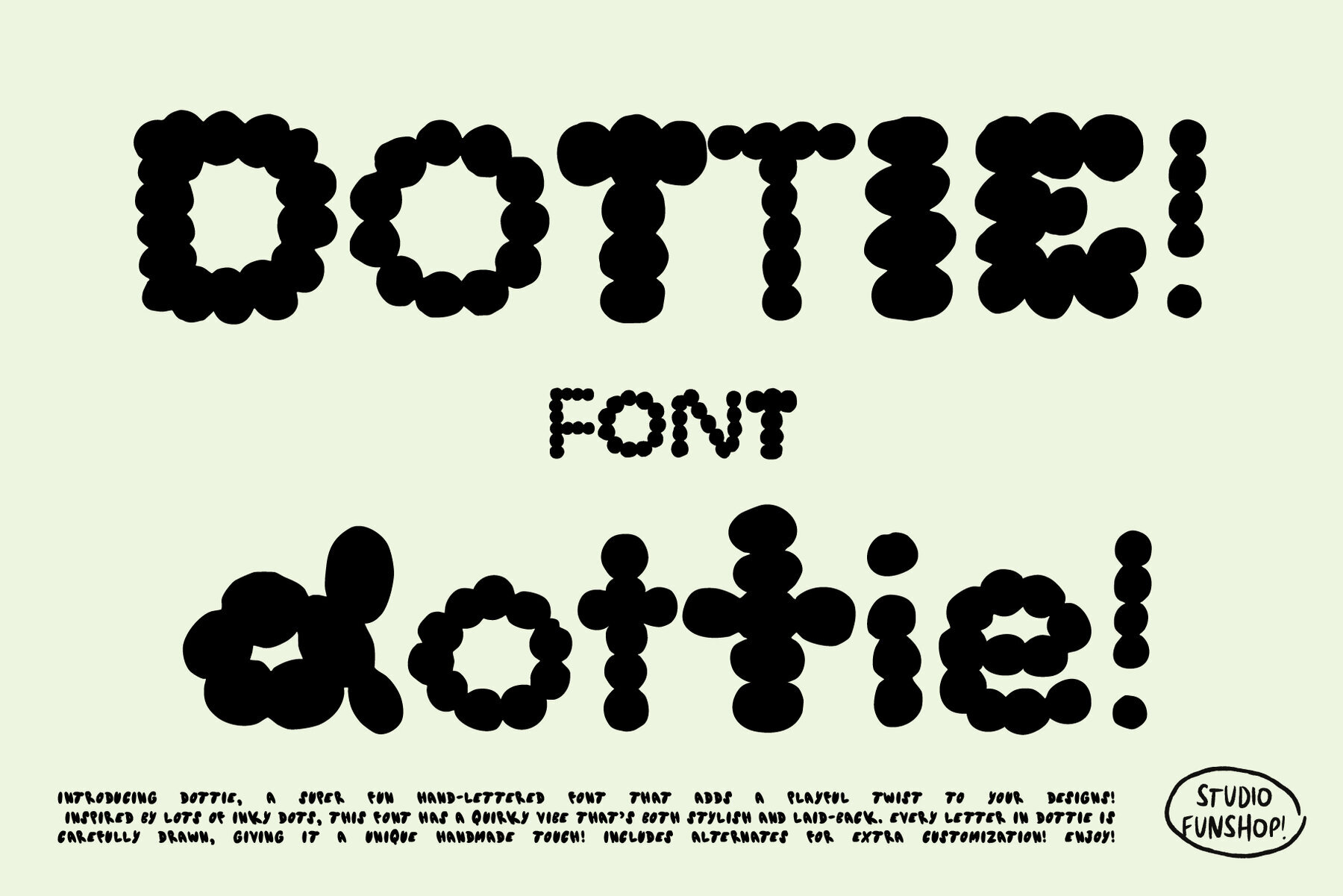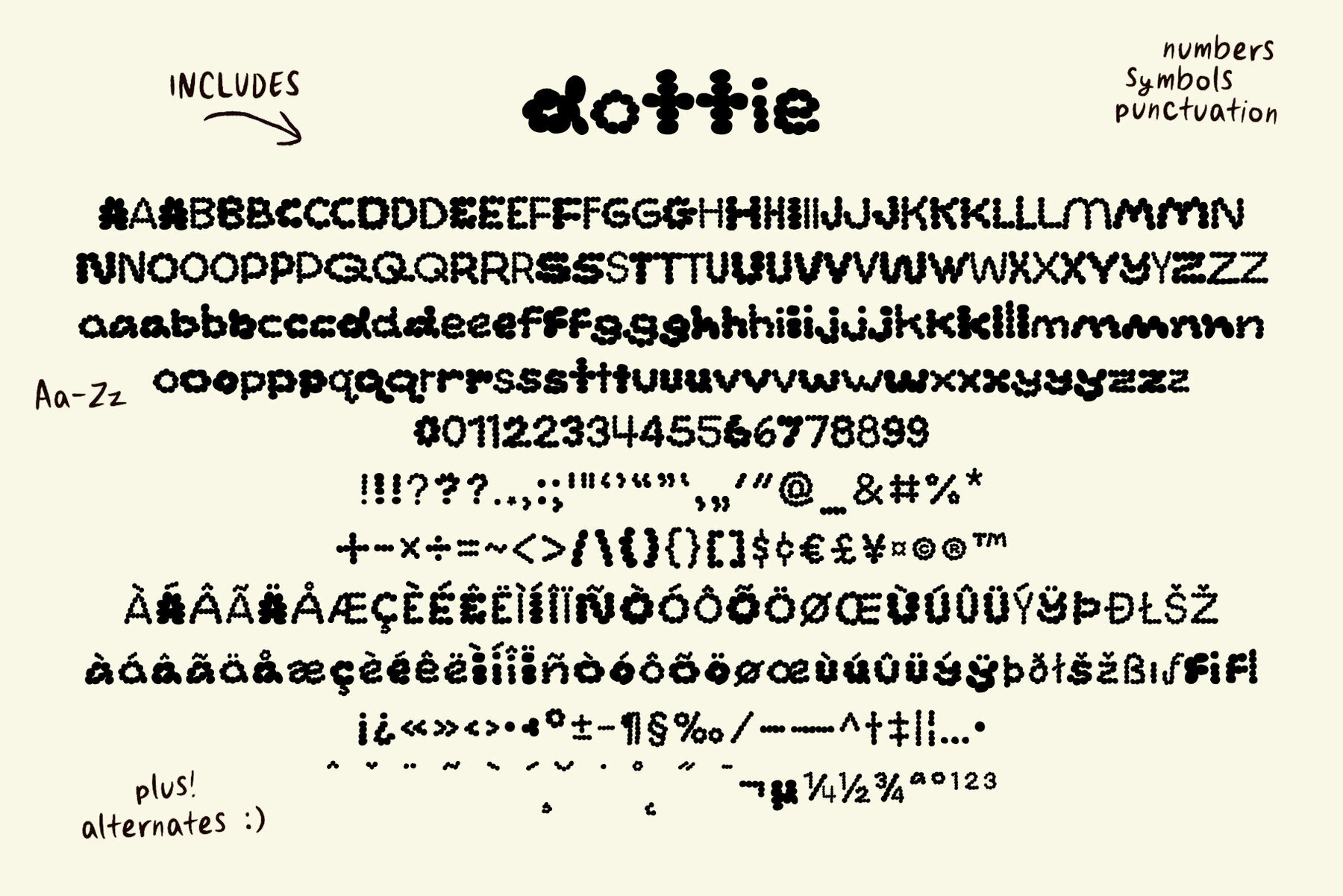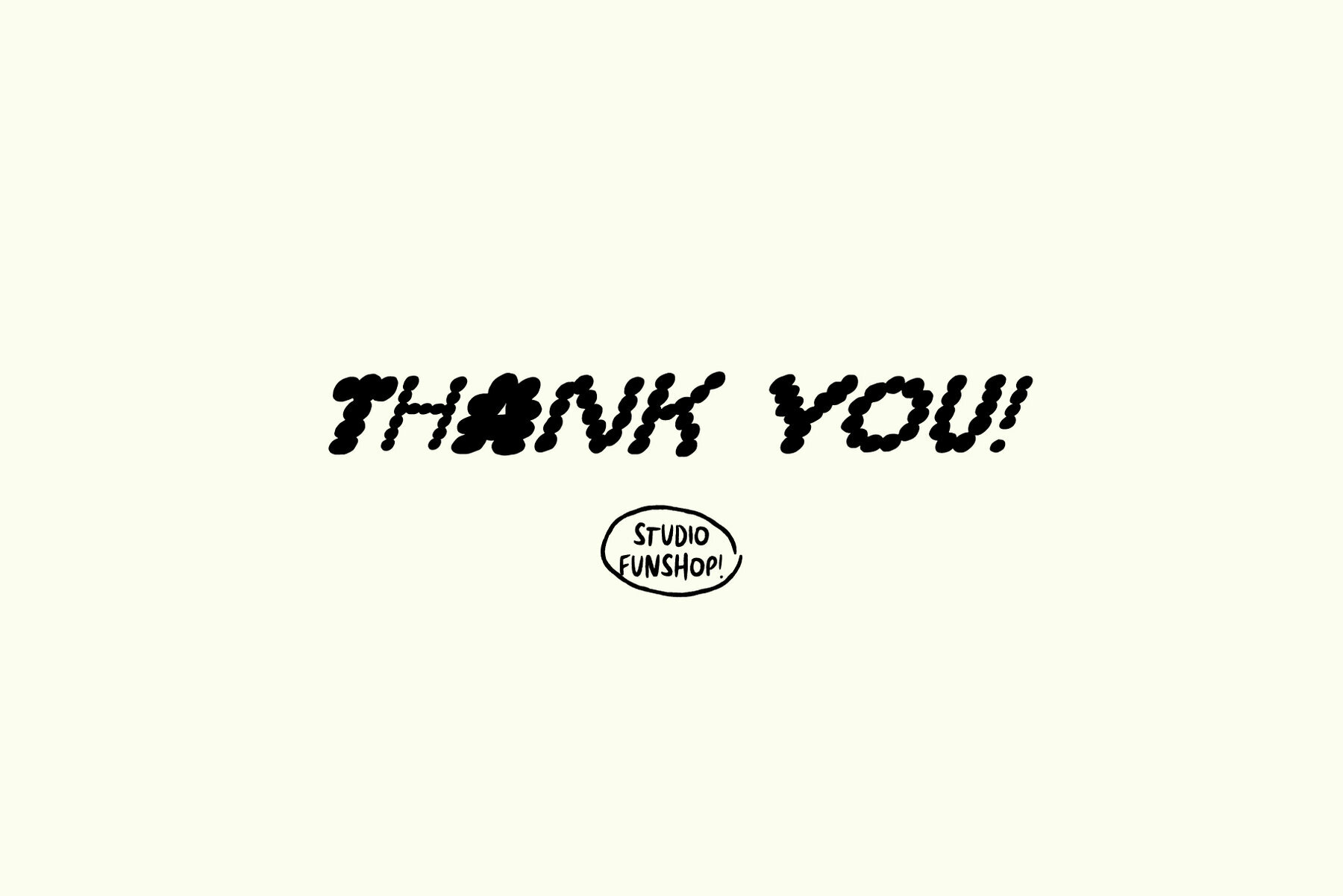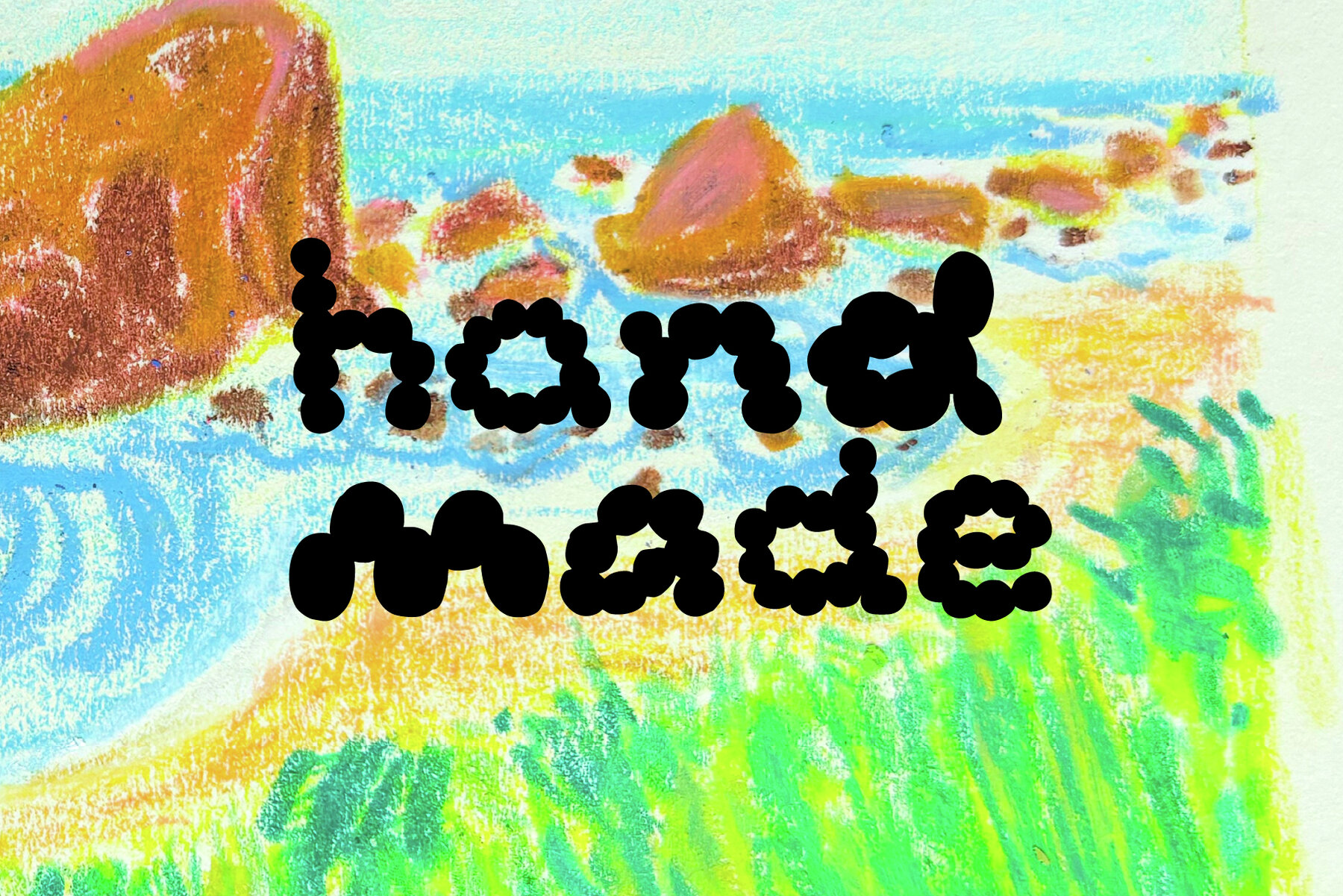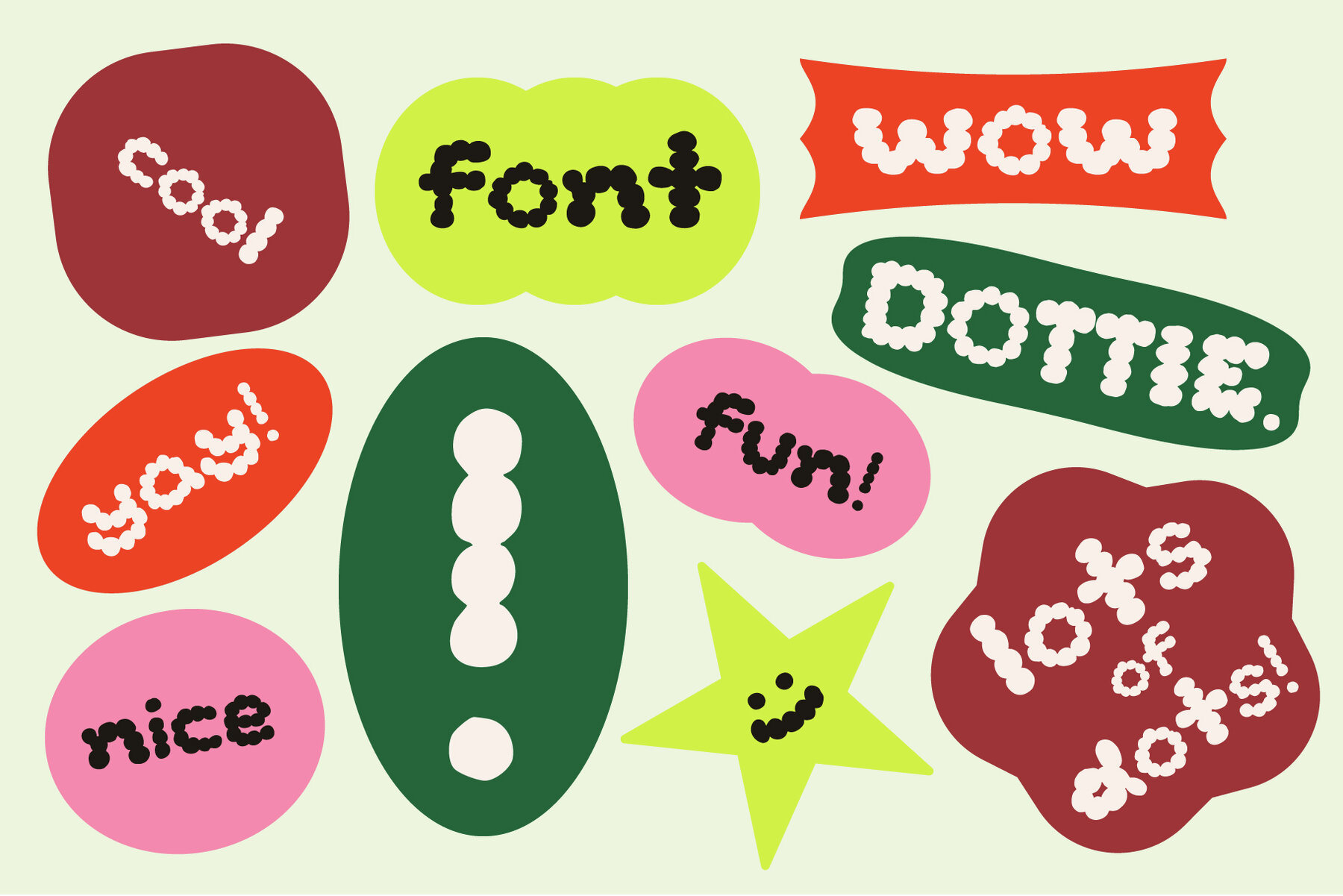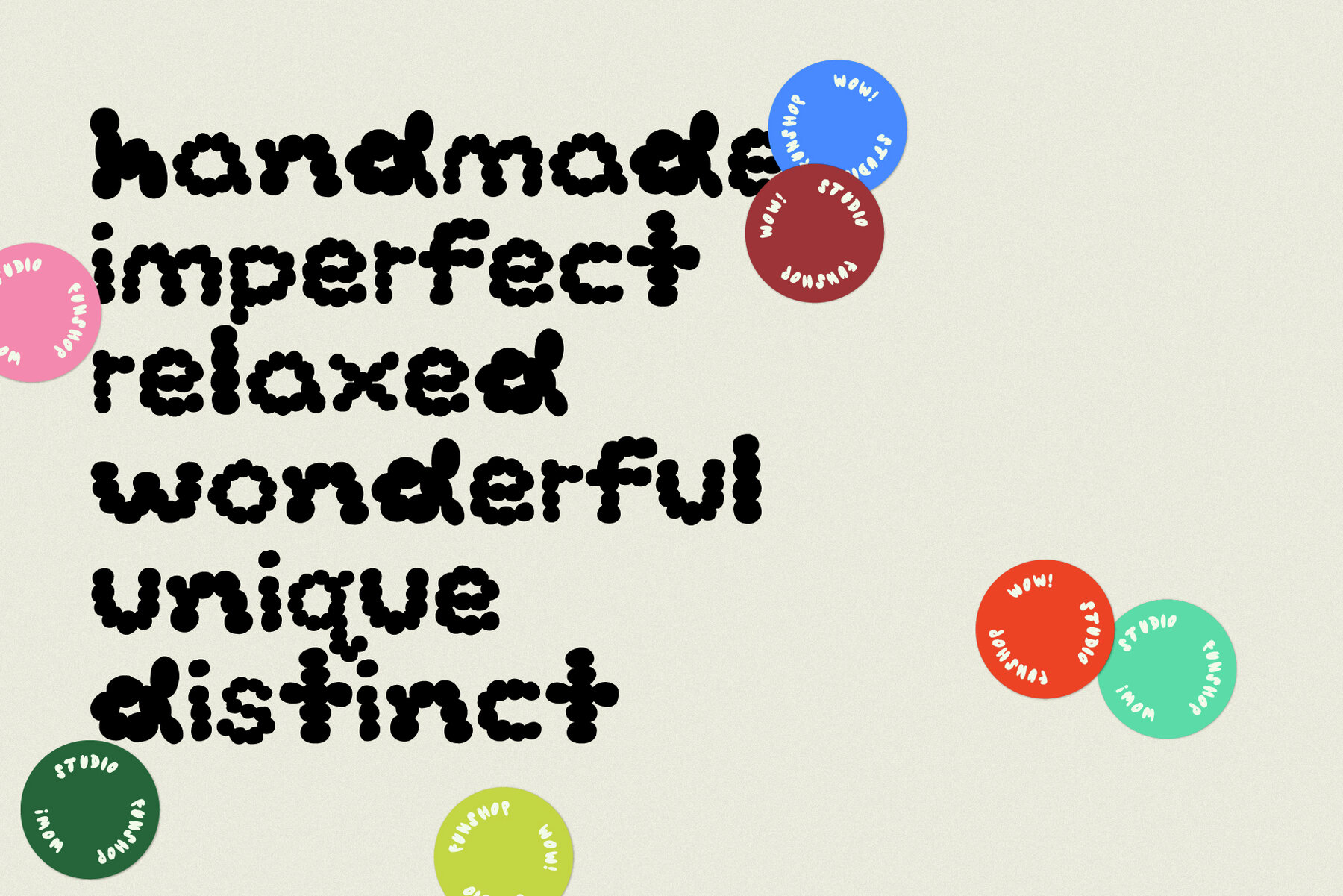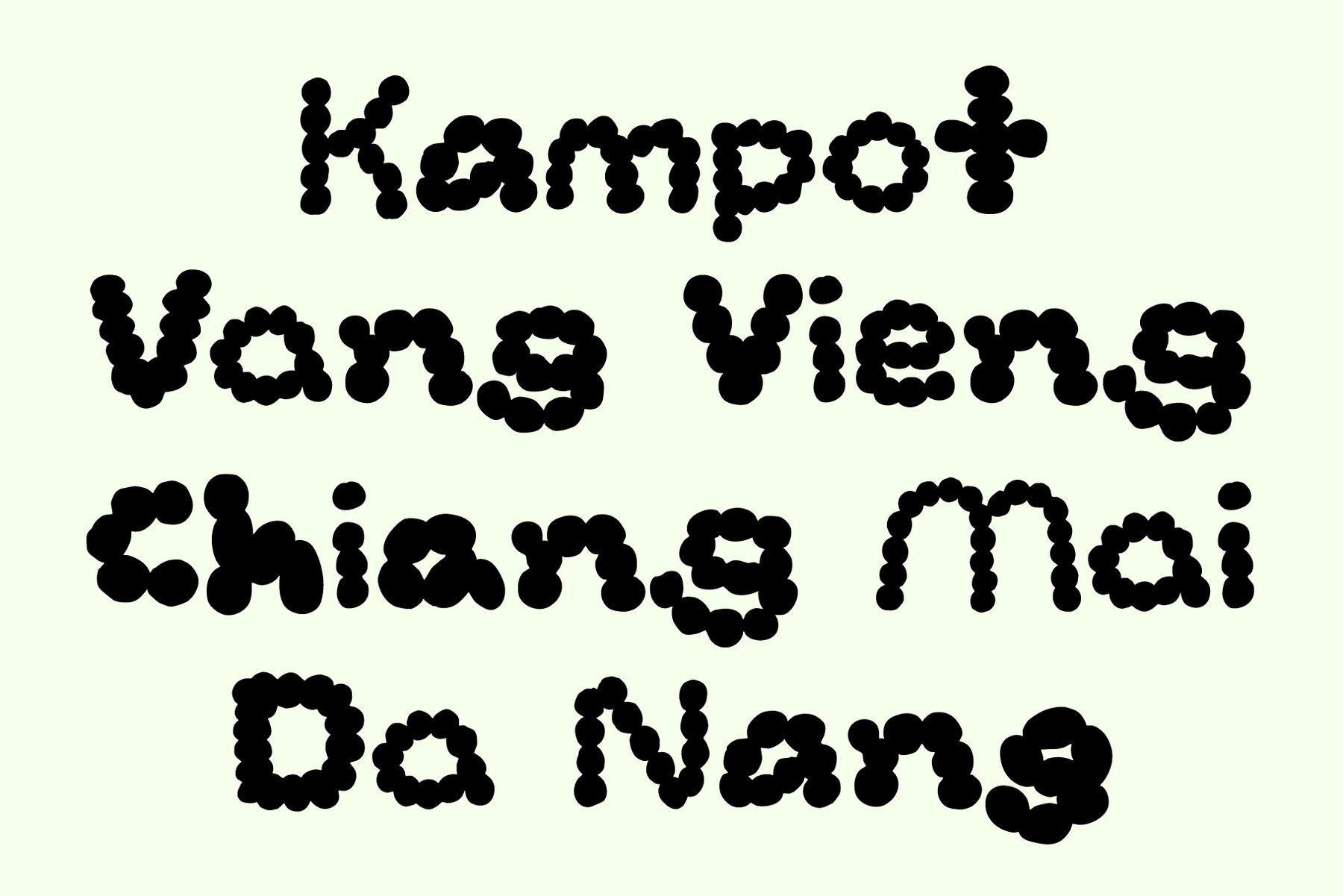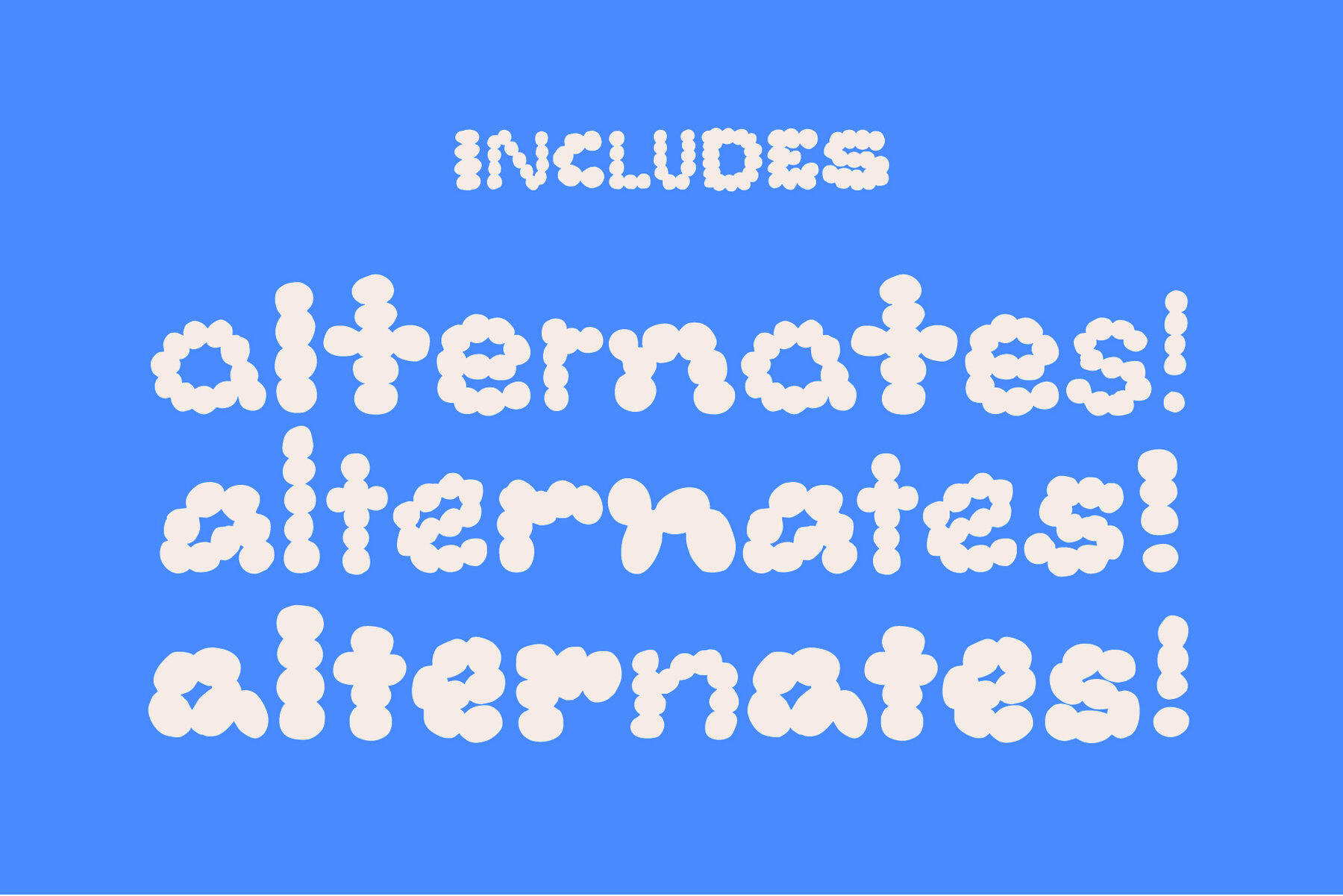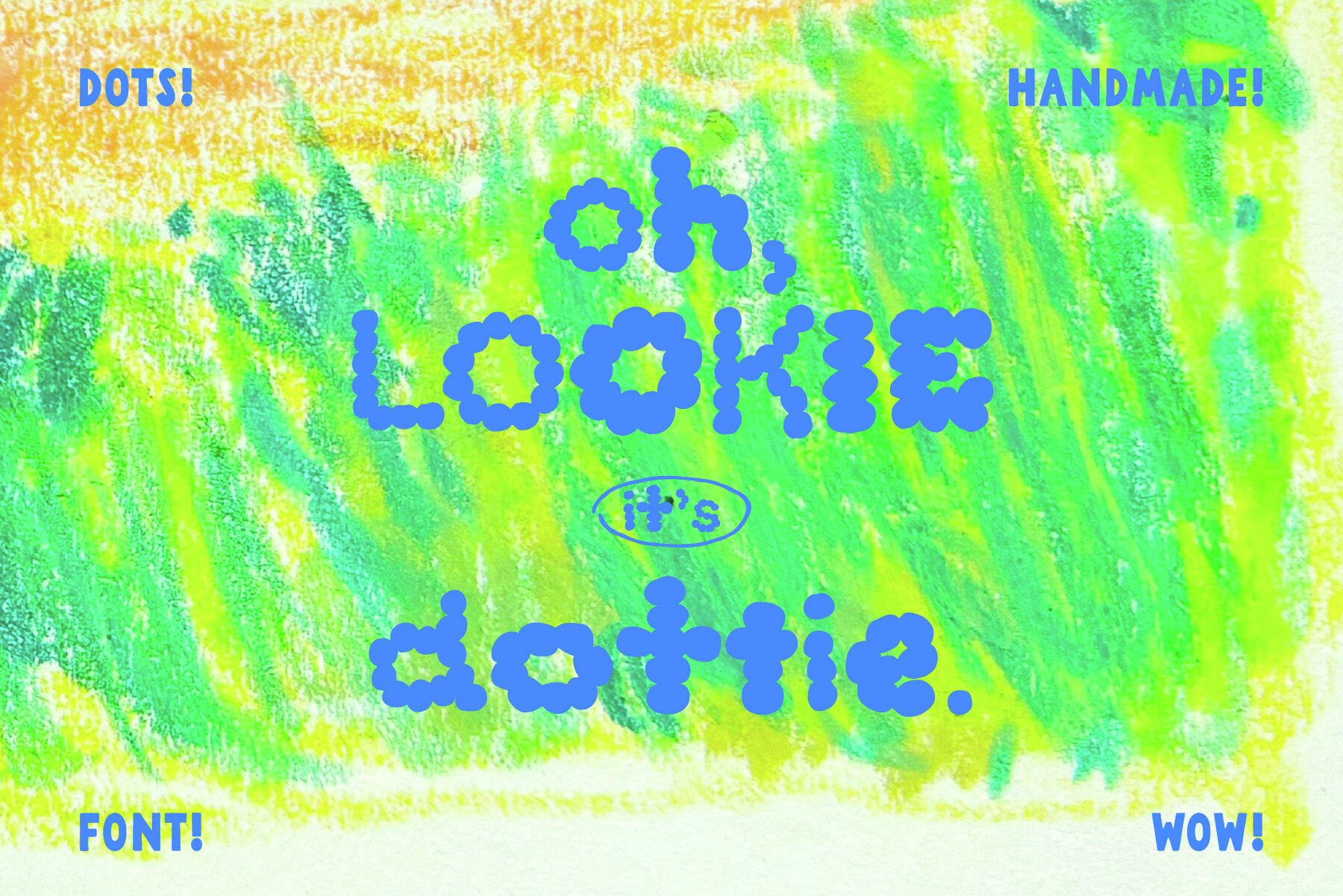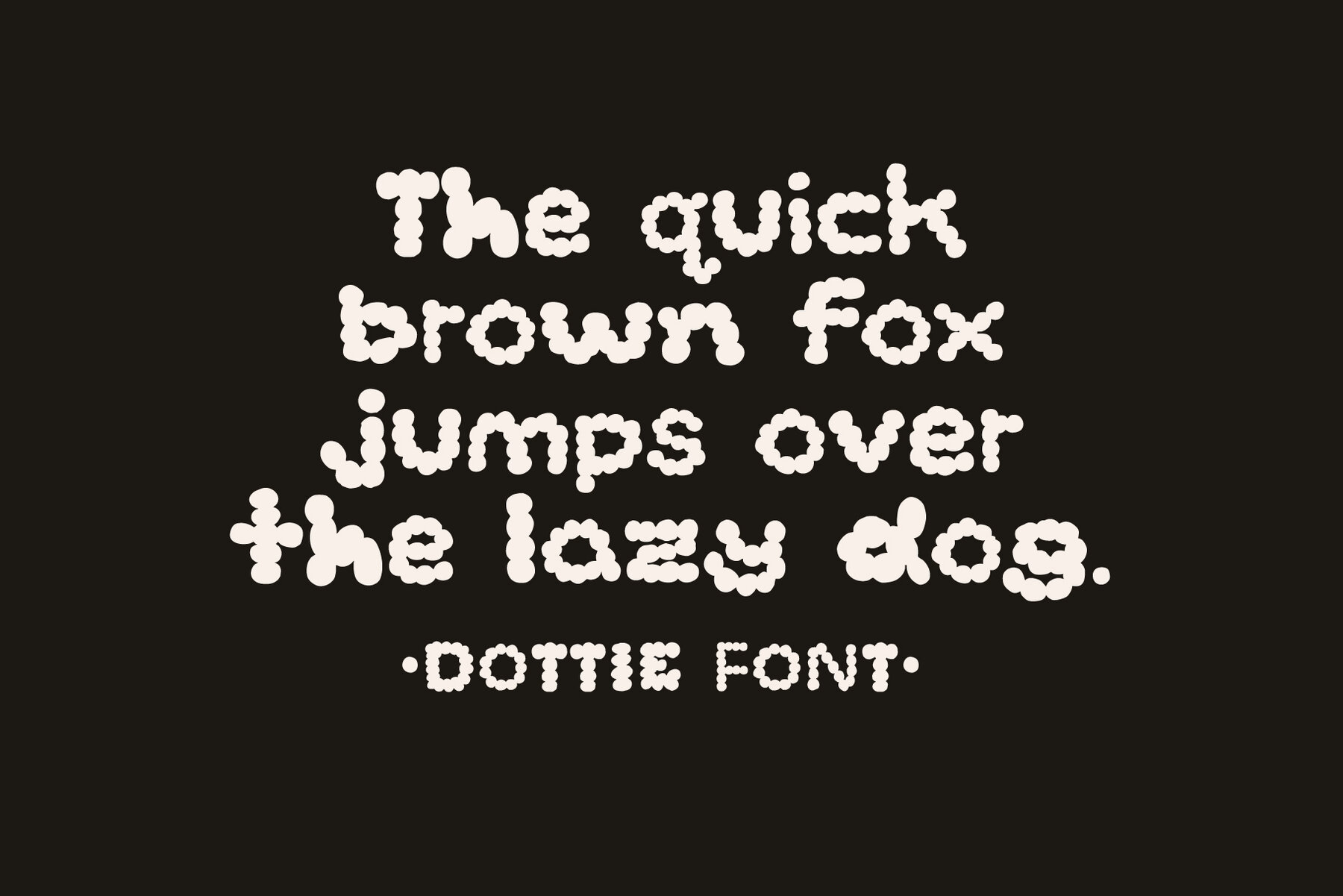
Dottie Font
This playful and bold decorative font features organic, scalloped edges that offer a funky, expressive vibe. Perfect for projects needing a touch of creativity and youthful energy, it's ideal for album covers, children's book titles, and event posters.